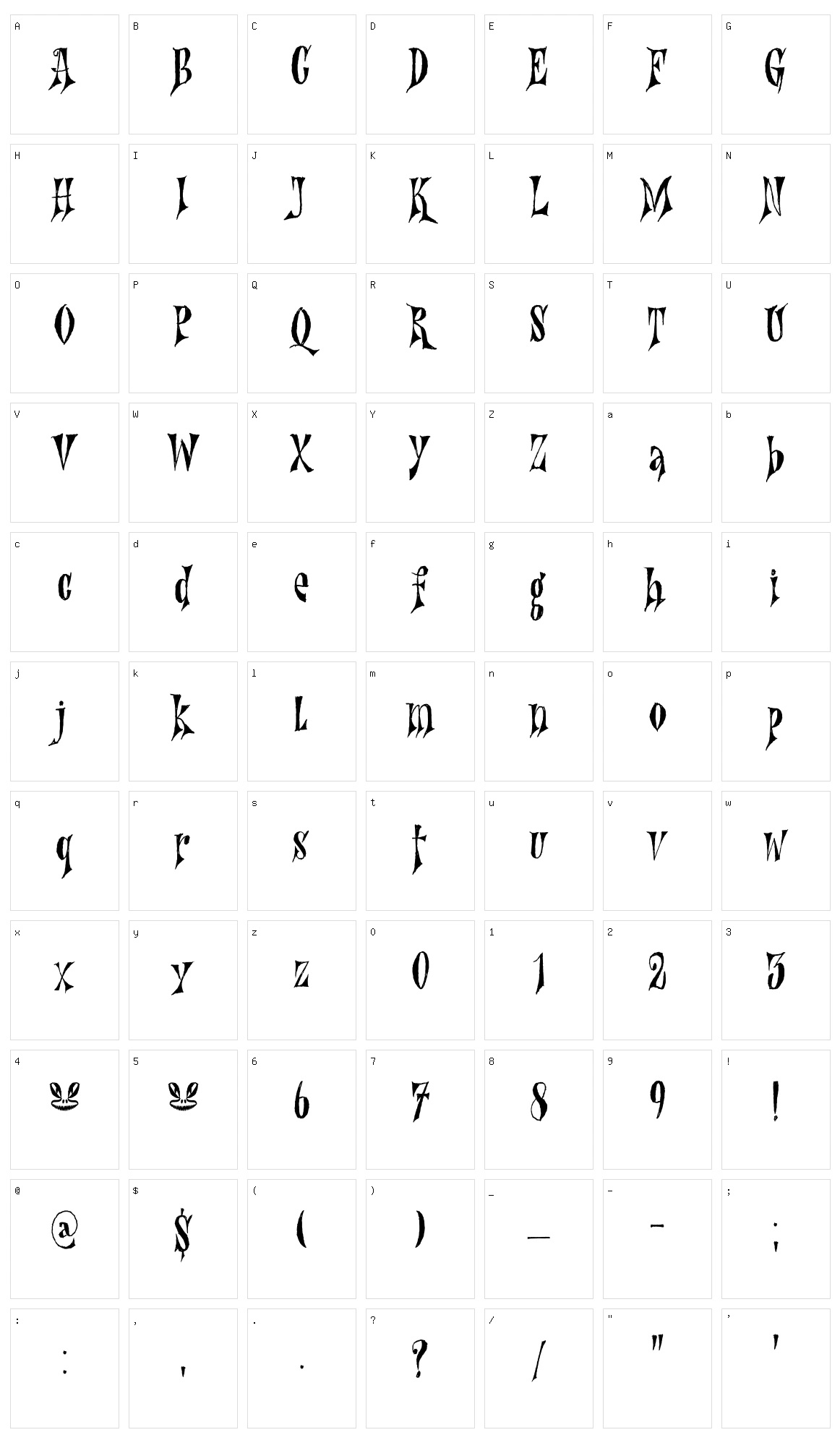
The free font Nefarious is carefully designed by Hanoded, showcasing a thoughtful balance of creativity and usability and falls under the Horror font style. When you download the ZIP file, it contains only 221.65 KB of font files, making it lightweight and quick to download. Please review the license details below to understand permitted usage and distribution rights. If license information is not available, we recommend using this font for personal projects only or contacting the author directly for commercial usage permissions.